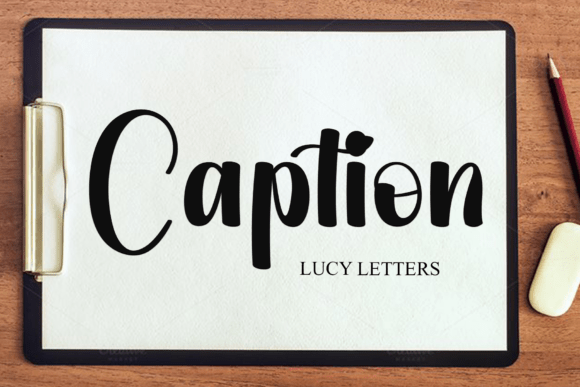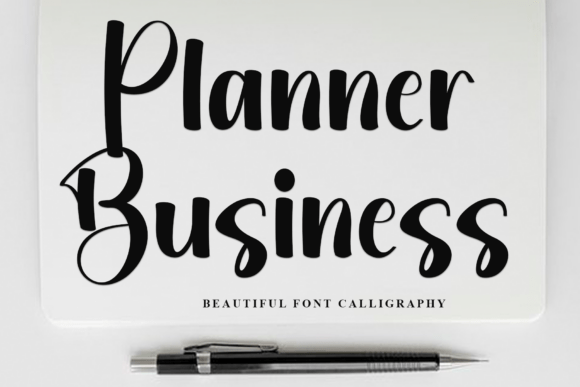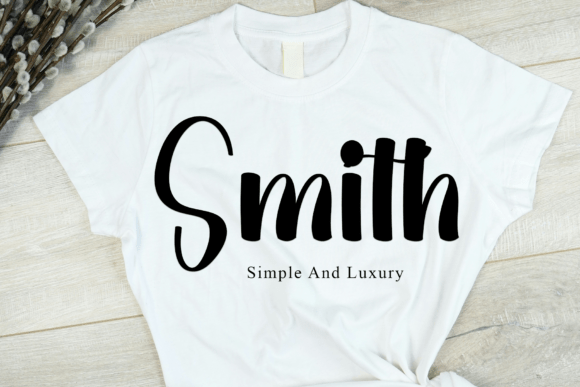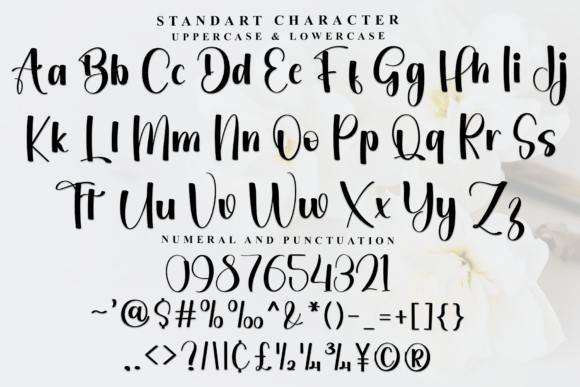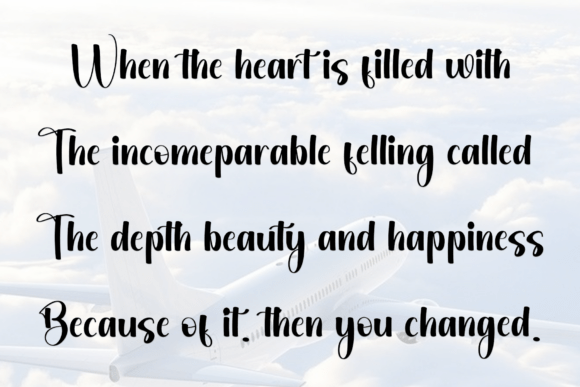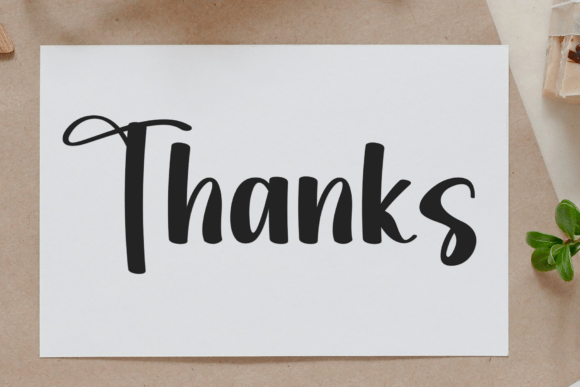
Introduction to Happy Handmade Font
As a designer, there’s nothing quite like the thrill of brainstorming ideas for a new project. The blank page stares back at you, waiting for your creative spark to ignite. For many, this moment is the perfect opportunity to break out the festive fonts and bring some holiday cheer to your design. One font that’s sure to put a smile on your face is the Happy Handmade Font.
This delightful typeface is more than just a font – it’s a design resource that captures the essence of the holiday season. With its whimsical flair and decorative elements, it’s the perfect addition to any creative project. Whether you’re crafting a set of greeting cards or designing a holiday-themed website, the Happy Handmade Font brings a touch of magic to your typography.
Key Features of Happy Handmade Font
- High-quality, hand-drawn design perfect for creative projects and design resources.
- Unique, handcrafted characters that add a personal touch to any design project, perfect for those seeking a distinctive look.
Honest Review: Happy Handmade Font
I recently had the chance to try out the Happy Handmade Font, and I must say it’s a delightful addition to my design resource collection. ✨ The font’s high quality is immediately apparent, with crisp lines and a charming, hand-drawn feel that’s perfect for creative projects.
Here are some of the things that I think work well about the Happy Handmade Font:
- The font is highly customizable, with a range of weights and styles to choose from.
- It’s a great choice for designers who want to add a touch of personality to their creative projects.
- The font may not be suitable for use in large blocks of text, as the hand-drawn feel can become overwhelming.
- It’s not a particularly robust font, so it may not hold up well to extensive use or resizing.
Overall, I’m really impressed with the Happy Handmade Font. It’s a fantastic design resource that’s perfect for adding a touch of whimsy to creative projects. With its high quality and free download option, it’s definitely worth checking out.
The Happy Handmade Font is a high-quality design resource that offers a unique and creative way to add a personal touch to your projects. With a transparent background, this font is perfect for adding a touch of whimsy to your designs.
For the best results, use the Happy Handmade Font in conjunction with other design elements, such as graphics and textures. Experiment with different font sizes and styles to create a unique and eye-catching design.
Common Use Cases for Happy Handmade Font
The Happy Handmade Font is perfect for a variety of creative projects, including wedding invitations, baby shower decorations, and holiday cards. It’s also great for adding a personal touch to your business branding and marketing materials.